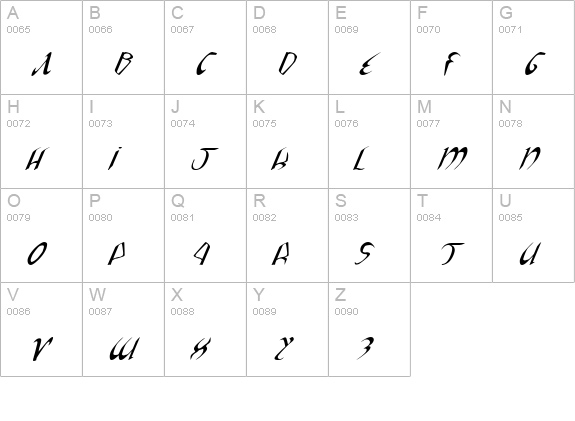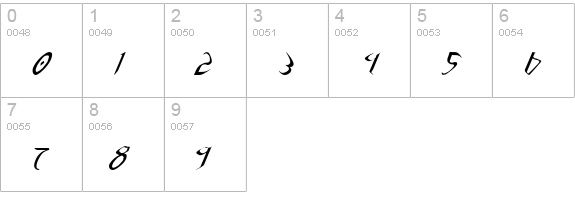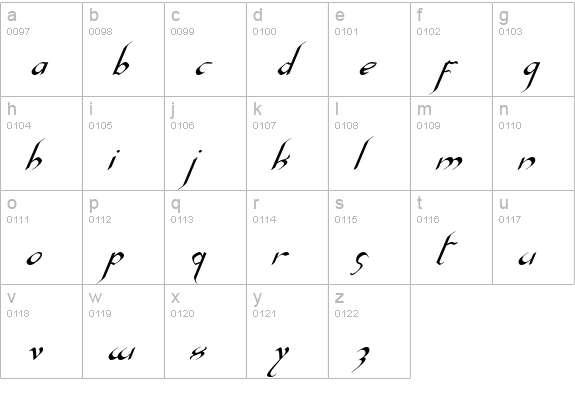
Xaphan II Italic is a distinctive, italic variant in the Xaphan typeface family \xE2\x80\x94 well suited to design and typography projects.
Introducing Xaphan II Italic, a sleek and sophisticated font that exudes elegance and modernity. With its unique design and subtle curves, Xaphan II Italic is perfect for adding a touch of sophistication to any project. This versatile font is ideal for a wide range of design projects, from branding to editorial design. The best part? Xaphan II Italic is completely free to download at FontsMarket.com. Take advantage of this offer and elevate your designs with this stunning font today. Let Xaphan II Italic be the perfect addition to your font collection and bring a touch of elegance to your next project.